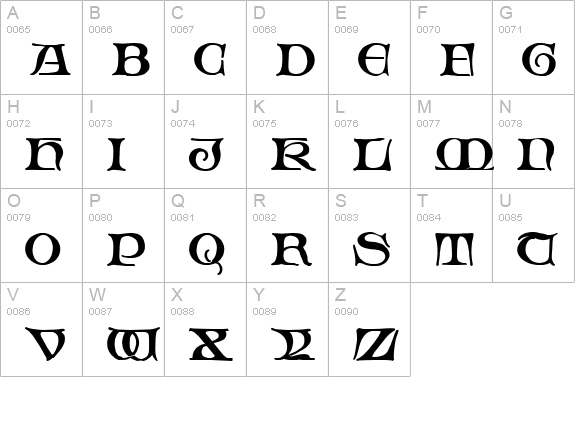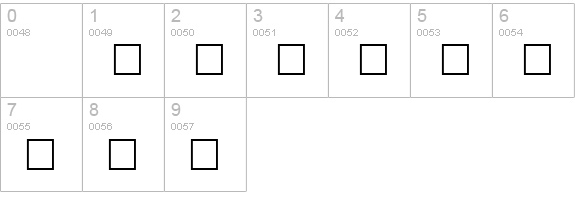
Fabliaux Regular Font Details
Fabliaux Regular is the standard, neutral variant in the Fabliaux typeface family \xE2\x80\x94 well suited to general body text, paragraphs, and standard typographic work.
Fabliaux Regular is a versatile and stylish font that exudes a unique charm. With its clean lines and elegant curves, this font is perfect for adding a touch of sophistication to any project. Whether you're designing a logo, creating invitations, or simply adding some flair to your personal documents, Fabliaux Regular is sure to impress. This font features a balanced combination of rounded and sharp edges, giving it a modern yet timeless look. The letterforms are beautifully crafted, with each character seamlessly flowing into the next. The generous spacing between letters ensures readability, even at small sizes. One of the best things about Fabliaux Regular is that it is free. That's right - you can freely download this font at FontsMarket.com. This means that you can use it for both personal and commercial projects without any restrictions. Whether you're a professional designer or a hobbyist, you can enjoy the benefits of this stunning font without breaking the bank. Fabliaux Regular is available in multiple weights, making it a versatile choice for a wide range of design applications. Whether you prefer a bold and impactful look or a more delicate and refined style, there is a weight of Fabliaux Regular to suit your needs. In addition to its aesthetic appeal, Fabliaux Regular is also easy to work with. It is compatible with most design software and can be easily integrated into your workflow. Whether you're a seasoned designer or just starting out, you'll find that using this font is a breeze. So why wait? Download Fabliaux Regular for free at FontsMarket.com and elevate your designs to new heights. With its timeless elegance and versatility, this font is sure to become a staple in your font library. Don't miss out on this opportunity to add a touch of sophistication to your projects - get Fabliaux Regular today.